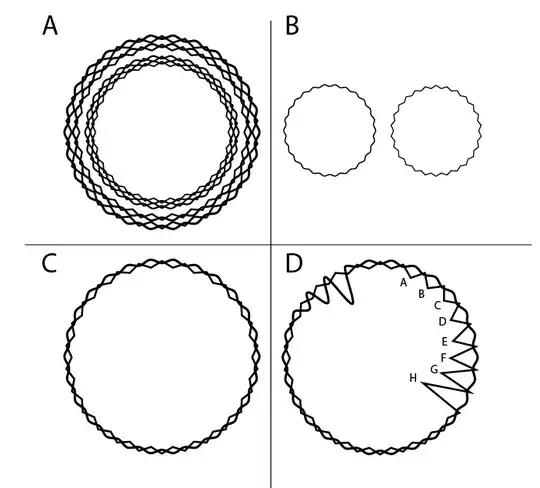
As a font designer, I was thinking that it would be very easy to design a special font that could either jumble characters of a language (or of a code) or simply (with the features offered by the OTF format) overlap into a complex design that only the other user (the reader) would be able to unscramble... Is this something that exists and could be plausible?
EDIT: To better explain myself, I just created this image. (A) represents a whole sentence. Each circle is a word. (B) details two different kinds of "words" that could exist: wavy, straight lines... but always with 26 peaks (for example an alphabet with 26 letters). When one single letter from a font is typed, just one wave or peak would be drawn until the whole word is typed. (C) is another detail of overlapping of two circles, each one is a word. (D) explains how a word could be read: each circle having 26 peaks, the distance of the peaks from the center tells the reader what letter it is. I made the distance very visible in (D) but it could be extremely subtle / only visible when analysed by microscope/etc.
Such a code could exist on the front page of a newspaper and no one would notice. And it's all encodable in a "simple" OTF font...
Is this something that exists and could be plausible?
Yes, things like that already exist and have even been used by well-known serial killers!
Monoalphabetic Substitution Cipher
What you are referring to, could be categorized as a classical “pigpen cipher”; a monoalphabetic substitution cipher where graphical symbols are used. You might change the symbols and maybe even the way you encode things, but replacing text with symbols will always boild down to a simple, monoalphabetic substitution cipher.
Nowadays, you won´t find too many examples of it in action, but things looked different hundreds of years ago when a simple substitution cipher was able to baffle the masses. Yet, those days have long gone and suchs ciphers can now mostly be found in children's books on ciphers or “secret writing” gimicks packed in breakfast cereal boxes.
The rare exceptions to this rule are limited to things like (for example) the notes from the “Zodiac Killer”. But – all in all – the enigmatic charisma of “danger” and “death” provided more mystery to those notes than the usage of symbols… something which can be broken/deciphered rather easily, assuming enough data or information is available.
example ciphertext: note of Zodiac killer
Modern Cryptography and Kerckhoffs' Principles
For better understanding: in modern times (and on this site), we tend to handle cryptography according to well-vetted rules… among them some which go back to Kerckhoffs' principles, which defines that a cipher algorithm should be made public (aka: regarded to be known by “the enemy”).
One of the reasons why some notes by the Zodiac Killer haven´t been deciphered yet, lies exactly in that area: the algorithm was never published and the data provided by the Zodiac killer did not provide enough information to deduct the actual contents of the ciphertext with absolute confidence.
Now, please don´t get me wrong. As someone who has professionally designed some fonts for advertising and other purposes, I am always intrigued by the idea of putting some visuals in communication. But I can´t help to share my two cents to spare you from walking the wrong path unwillingly:
• Would it make sense from a modern-day cryptographical point of view to create such fonts?
No. Not if you actually expect them to provide any kind of real cryptographic security.
• Would it be a nice hobby and find some fans nevertheless?
Sure… as long as you keep in mind you´ll most probably be spending more time creating the fonts than others (cryptanalysts, as well as “ye average” puzzle freaks) will need to break the ciphertexts created with them.
Let´s take your font idea and put it on the front page of a newspaper as you implied. That might work once. But the more you publish, the more data will be available and since we´re practically talking about a monoalphabetic substitution cipher, it won´t take too long for the first people to decipher your stuff by “guessing” the keys (with merely a sprinkle of Cryptanalysis).
Especially, since you´re even limiting the security down to…
26 peaks
… instead of the 256 “peaks” (= 8 bits = 1 unsigned byte) we work with in modern crypto.
As a simple rule of thumb: The smaller the alphabet, the easier the cryptanalysis!
I surely agree with you that one can hide a secret in the open. But as soon as someone knows there´s a secret to look for, security starts to fade towards zero. That´s where you need a secure cipher, and – whether we like it or not – fonts can not replace cryptographically secure algorithms.
In order to create something secure today, a good understanding of current cryptography is mandatory.
As the others answered, this of course is not a good idea. However, something similar which can be done properly is called "visual cryptography". This was introduced by Moni Naor and Adi Shamir at Eurocrypt 1994. This has its own Wikipedia entry, so I'll leave it for you to go there and start investigating.